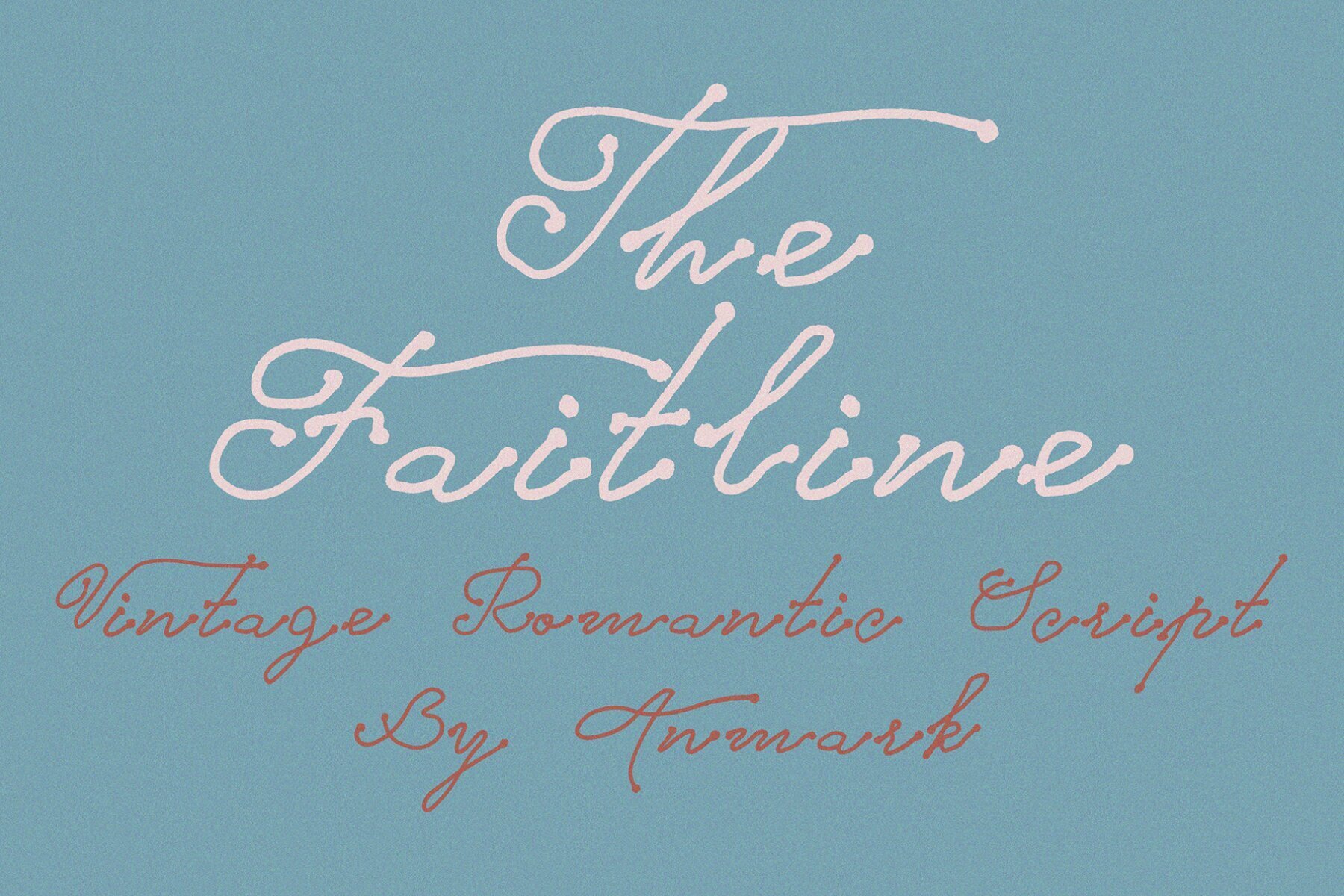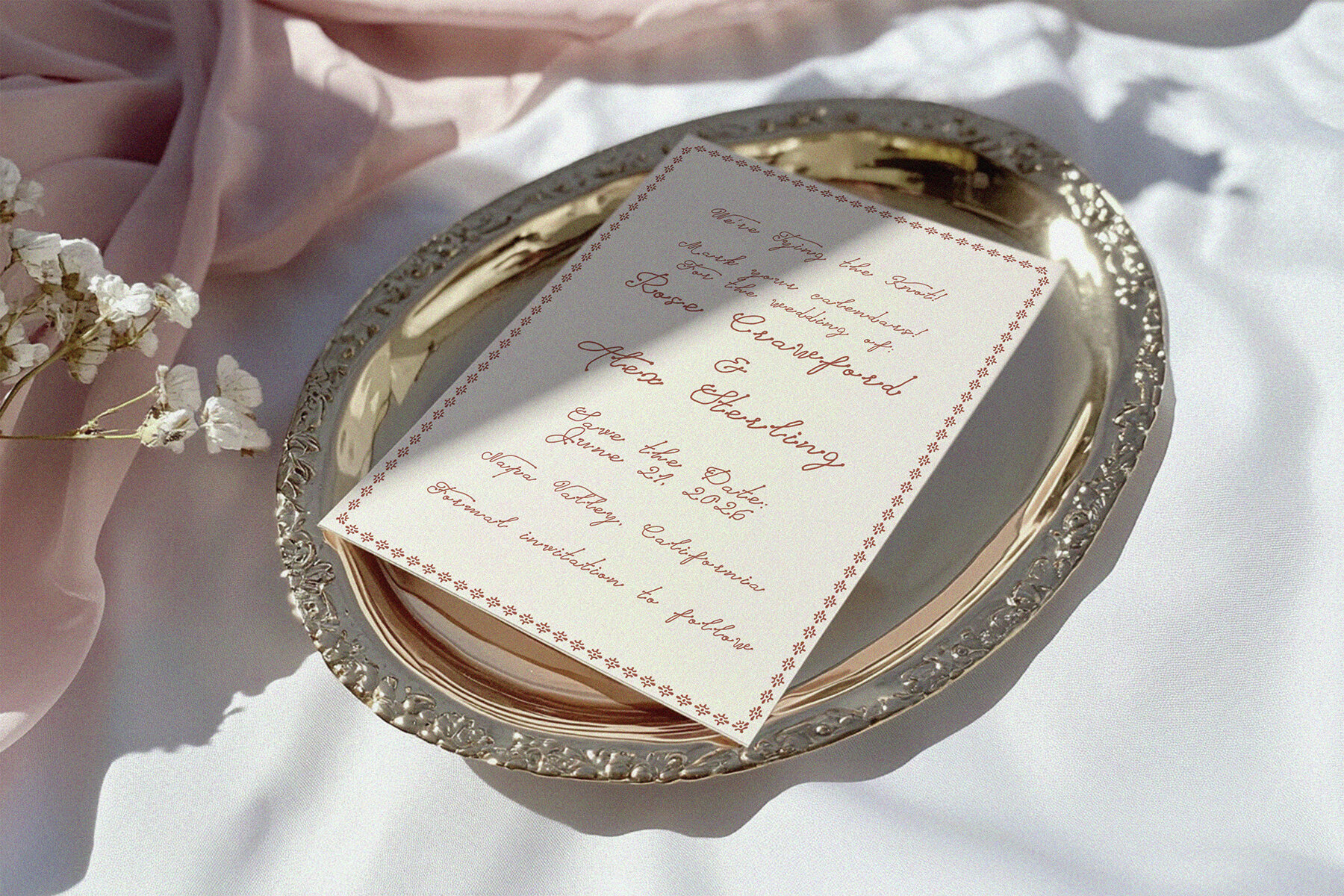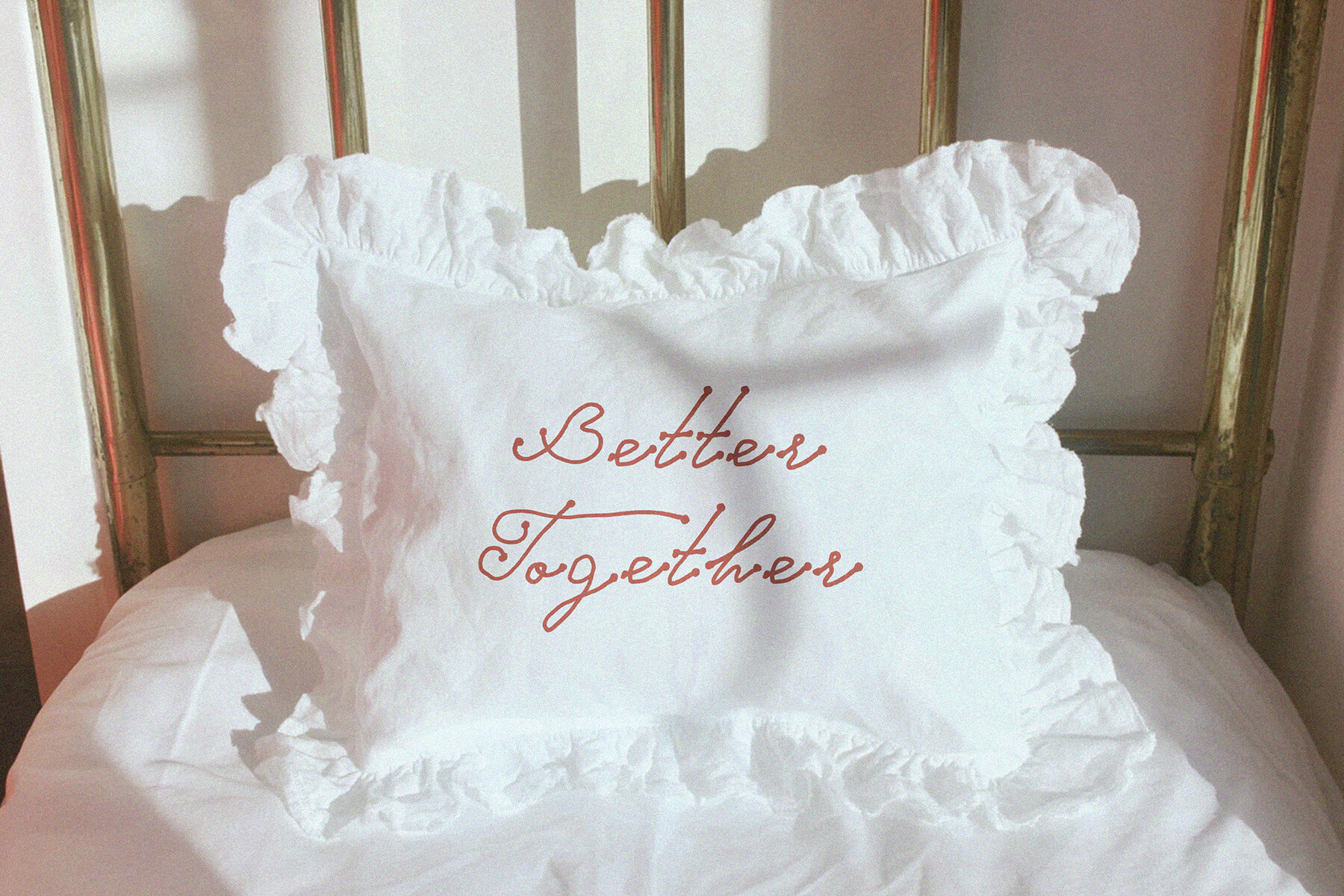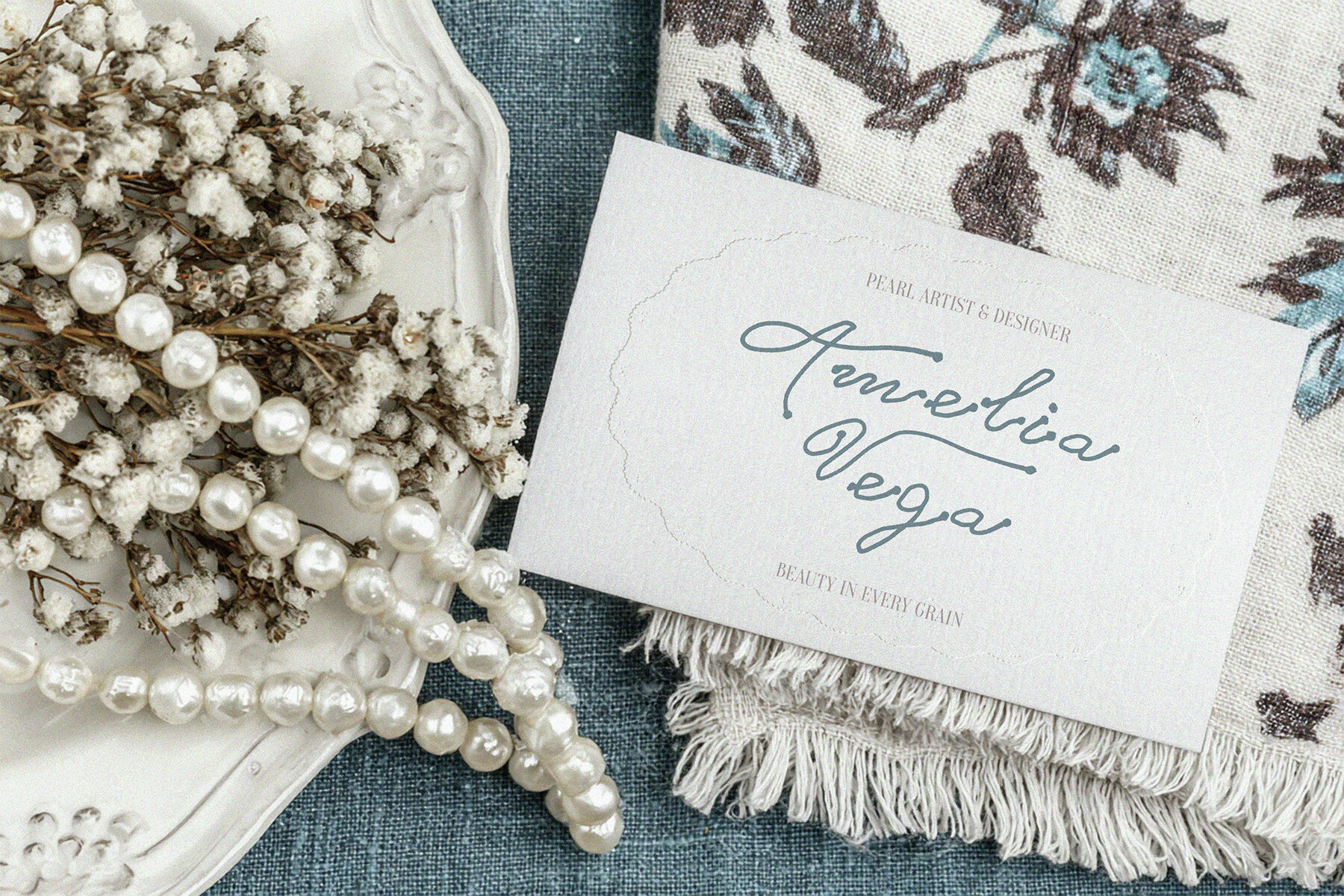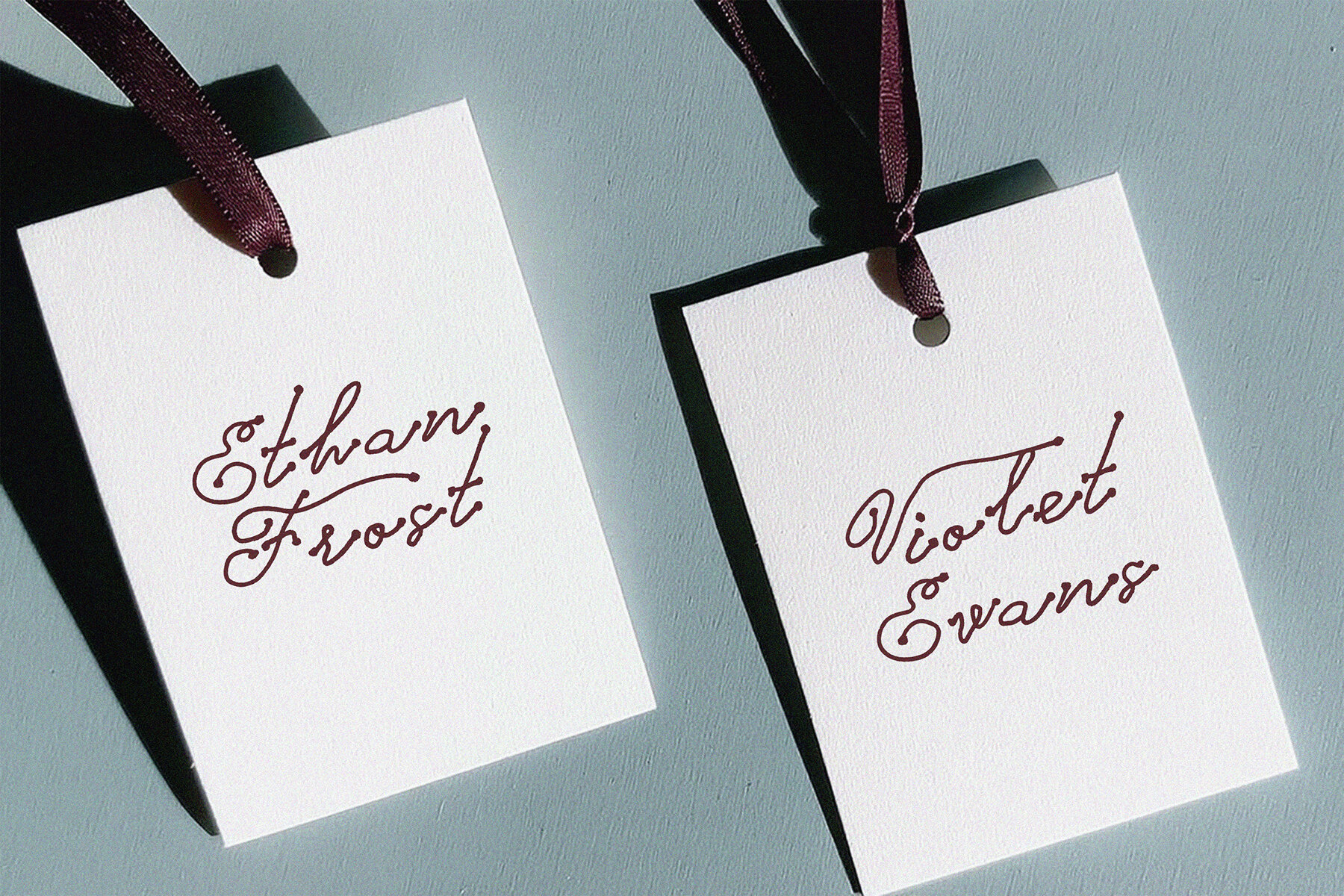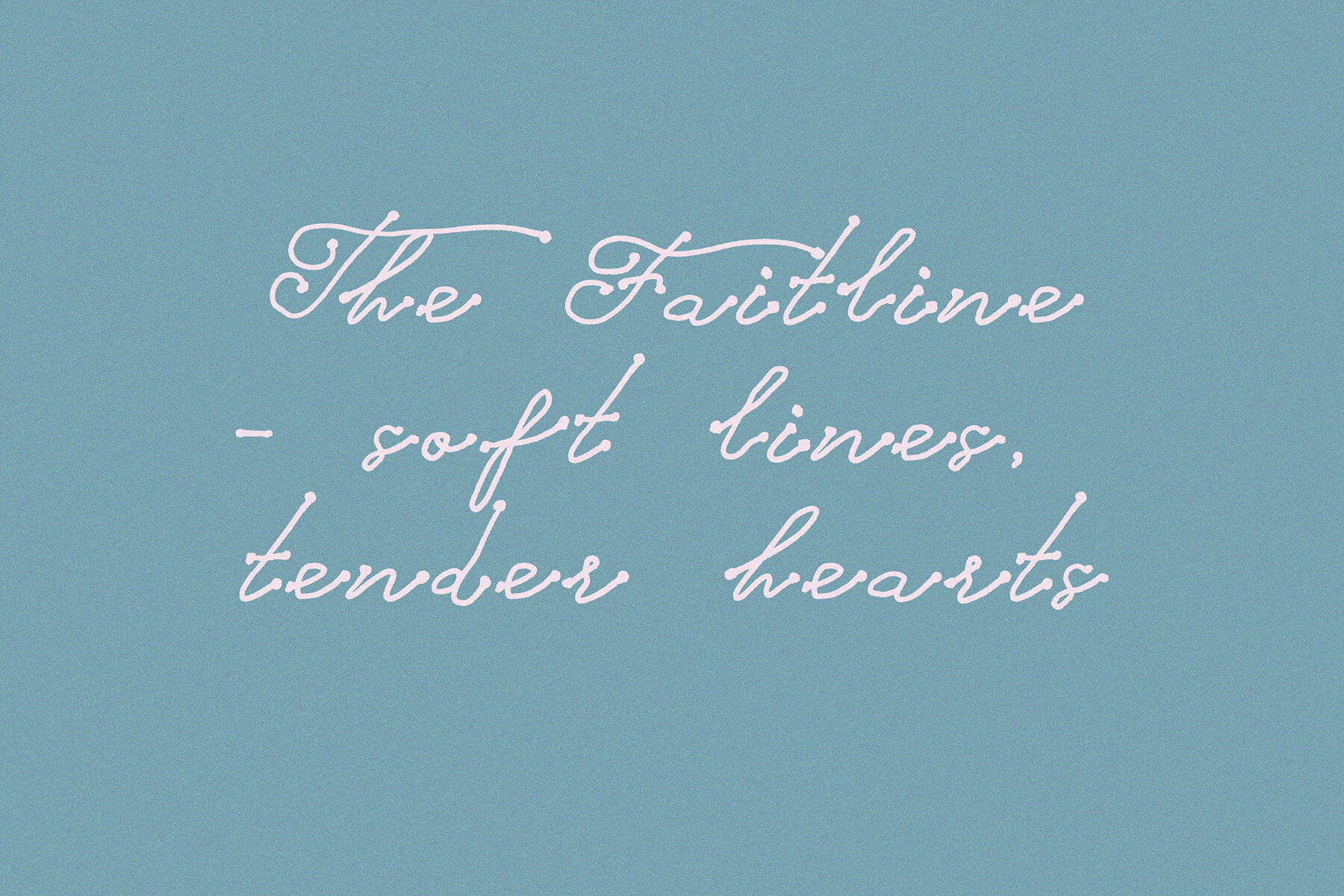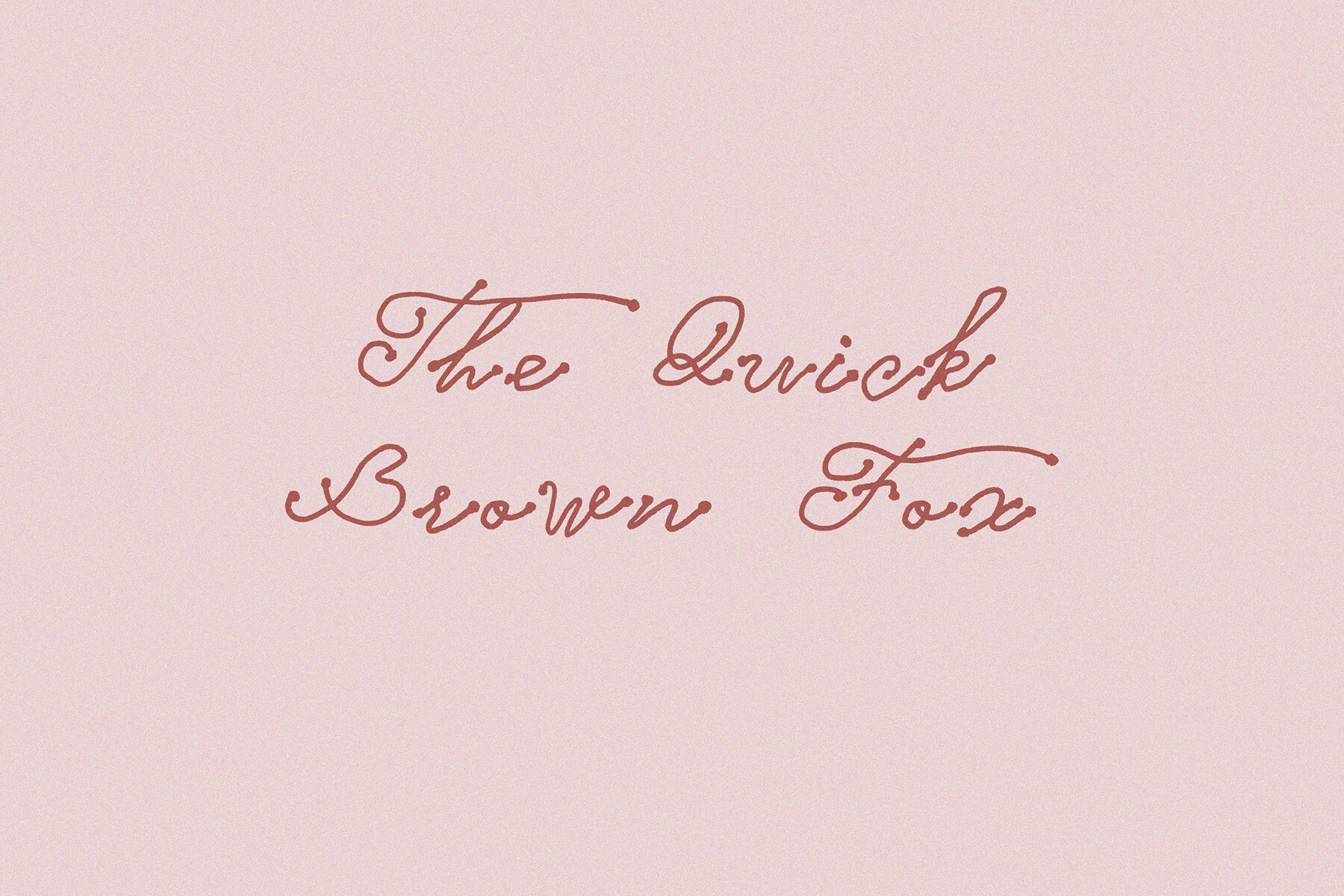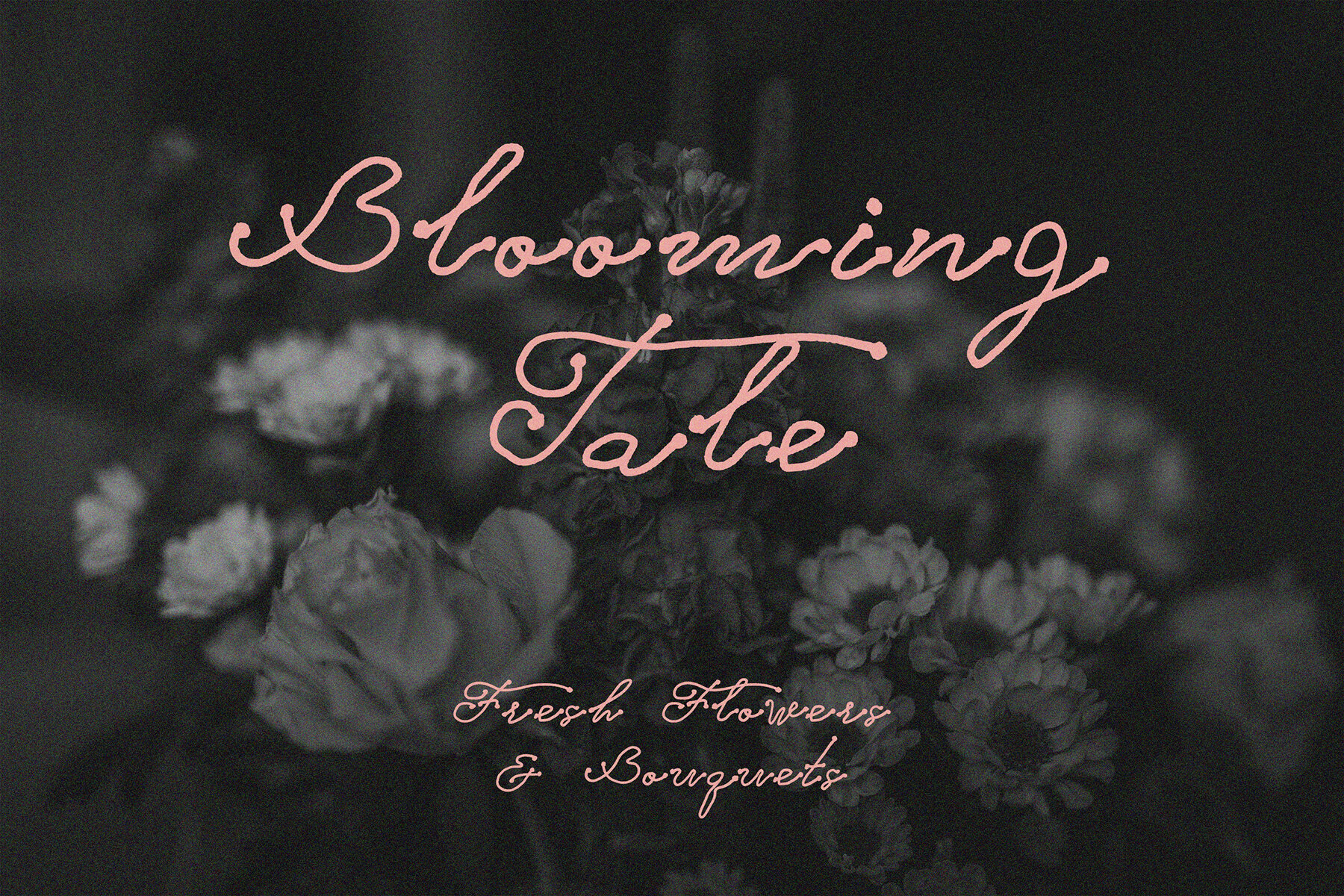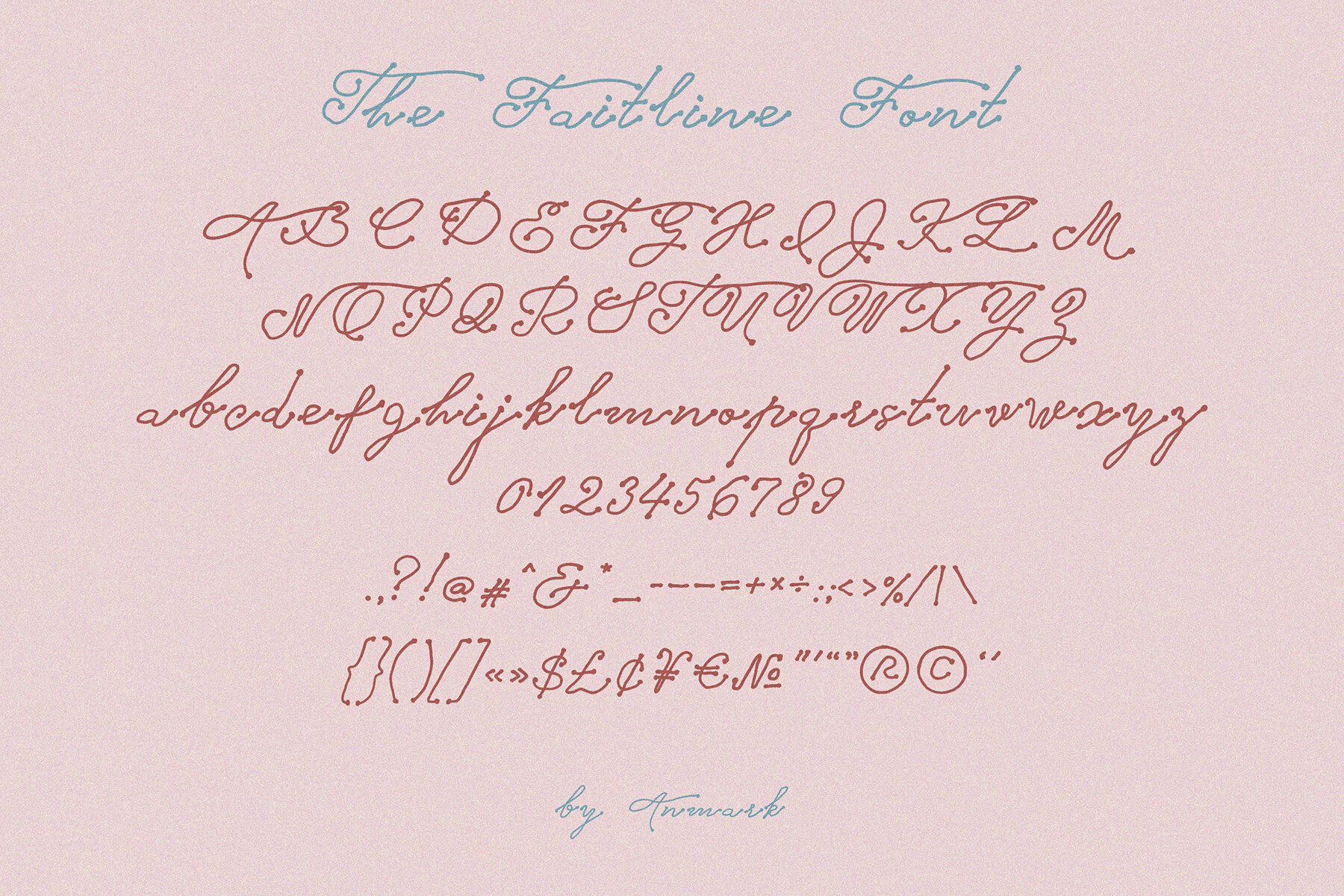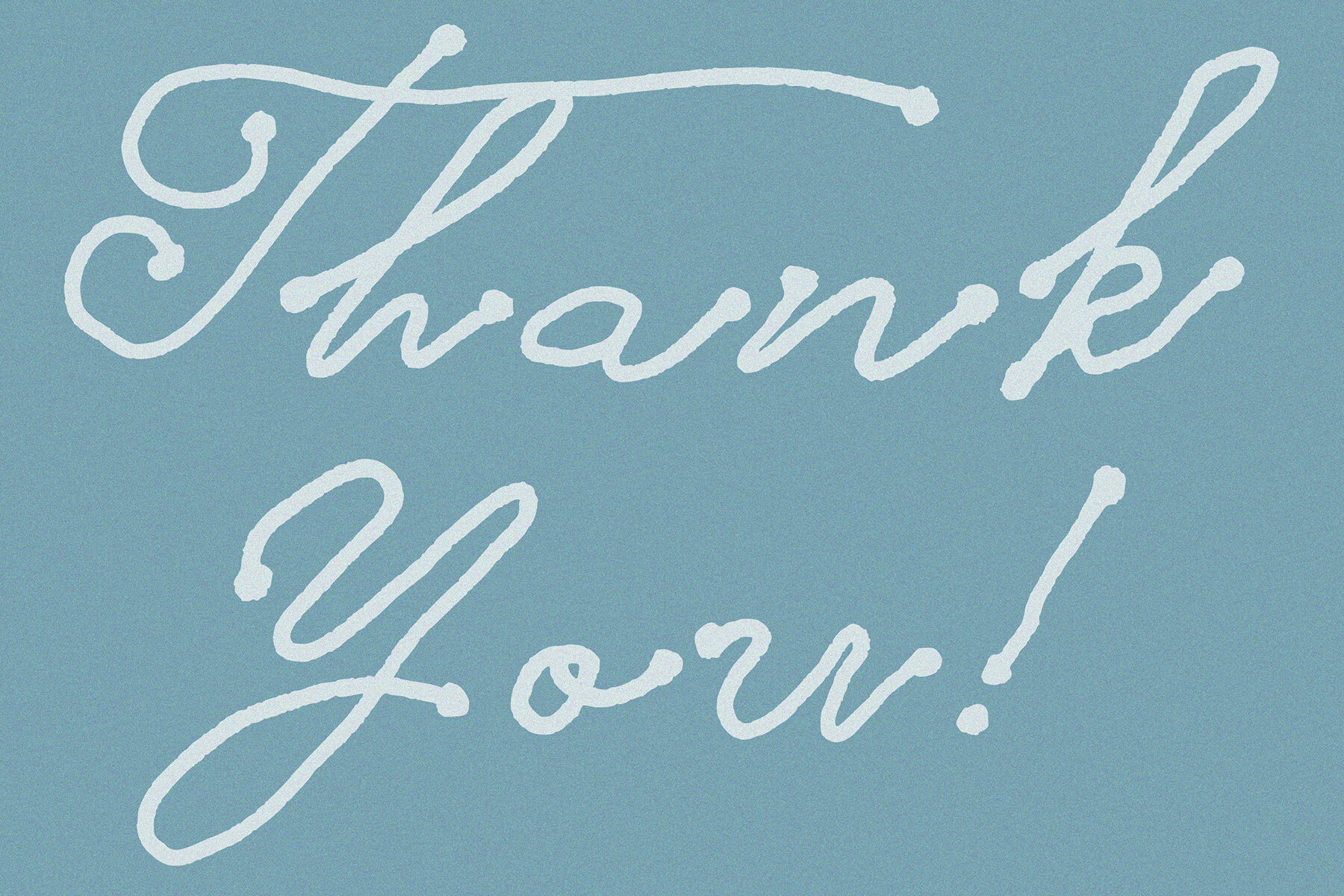
The Faitline Font
The Faitline
The Faitline Romantic Script offers a delicate, vintage-inspired style designed to infuse your projects with a romantic touch. Its flowing, elegant lines and smooth curves create an inviting sense of warmth and sophistication. This font captures the charm of timeless romance, making it a versatile choice for both classic and modern designs. This script font brings a graceful and inviting presence to any creative work. Its refined character makes it suitable for a range of projects where a romantic and sophisticated vibe is desired.The Faitline Romantic Script Font